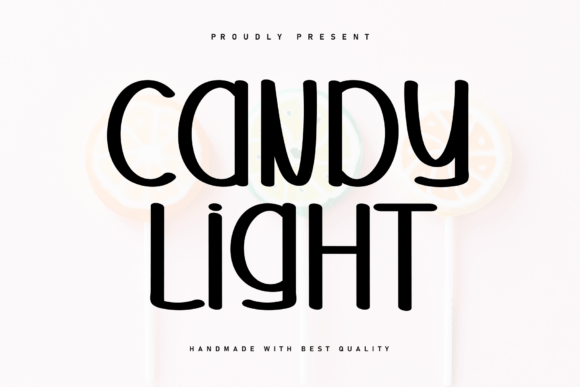
The Sweet Spot: Discovering Candy Light Font
I still remember the design project that led me to Candy Light Font. I was working on a whimsical branding campaign for a new bakery, and I was struggling to find the perfect font to capture the warmth and playfulness of their brand. That’s when I stumbled upon Candy Light, and it was love at first sight! ✨
This sweet and beautiful handwritten font has since become a staple in my design toolkit, and I’m excited to share its charm with you. Featuring characters that dance along the baseline, Candy Light is sure to add a cozy accent to any design project you wish to create!
- ✨ Elegant and whimsical handwritten style
- ✅ Easy to read and works well for body text
- 💃 Beautifully crafted characters with a playful touch
- 🌈 Extensive range of OpenType features and glyphs
While Candy Light is an amazing font, there are a few things to keep in mind: 🤔
- ⚠️ Some characters may not work well in all contexts (e.g., all-caps headings)
- ⚠️ Limited availability of certain special characters
Candy Light Font was crafted with love by a talented designer who wanted to create a font that would evoke the warmth and playfulness of childhood treats. With its elegant, handwritten style and extensive range of OpenType features, Candy Light is perfect for designers who want to add a touch of whimsy to their projects.
Q: What type of projects is Candy Light best suited for?
A: Candy Light is versatile and can be used for a wide range of projects, from branding and packaging to wedding invitations and social media graphics.
Q: Is Candy Light a difficult font to read?
A: No, Candy Light is designed to be easy to read, making it suitable for body text and other long-form content.